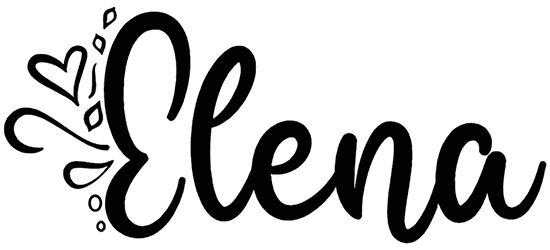
Elena Font
When we look at the design of capital letters in Elena, an artist immediately appears in our mind who patiently painted delicate decorations around them and took this angel font out of the ordinary.
We suggest this Valentine’s font if you’re looking for decorations other than the usual curves in your writings and want to leave a different design. Elena’s natural and organic style has not reduced anything from readability and can create intimate wedding invitations or cards for you.